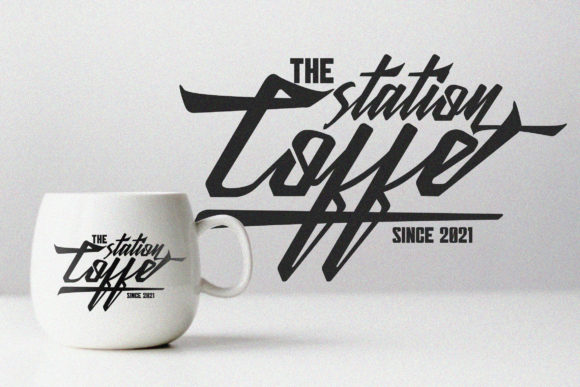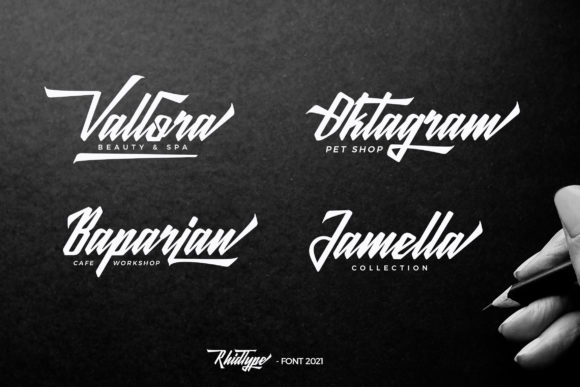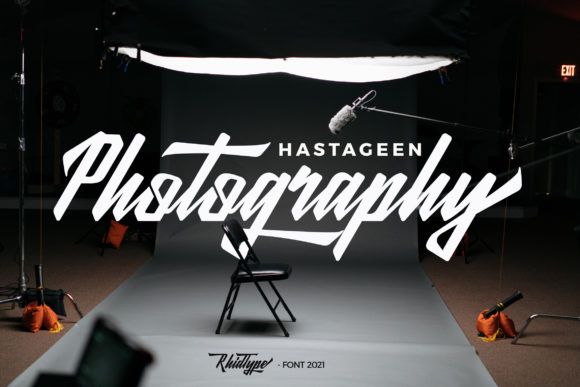
Introduction to Hollandia Font
Have you ever found yourself staring at a blank canvas, searching for the perfect font to bring your creative project to life? I’m sure many designers can relate to this moment of uncertainty. But what if I told you that there’s a font that can help you break through that creative block and make your design stand out? Say hello to the lovely and timeless Hollandia Font, a high-quality handwritten font that’s perfect for creating eye-catching logos, branding, and quotes.
As a valuable design resource, the Hollandia Font offers a wide range of glyphs and swashes, making it easy to access and customize. And the best part? It’s PUA encoded, which means you can download it for free and use it in your next creative project with ease. Whether you’re a seasoned designer or just starting out, the Hollandia Font is a must-have in your design arsenal.
Key Features of Hollandia Font
- High-quality, professional font perfect for creative projects and design resources.
- Unique, modern design with a transparent background, allowing for versatility in creative projects.
- Comes in a single font size, ideal for use in logos, headings, and body text, with a resolution of 300 DPI.
- Features a unique, hand-drawn aesthetic, setting it apart from other fonts in the market.
Honest Review: Hollandia Font
As a designer, I’m always on the lookout for high-quality fonts to enhance my creative projects. Recently, I had the chance to work with the Hollandia Font, and I must say, it’s a great addition to my design resource library.
- Clean and modern design: The Hollandia Font boasts a clean and modern design that’s perfect for a wide range of creative projects, from logos to brochures.
- High-quality graphics: The font comes with high-quality graphics, including a transparent background, which makes it easy to integrate into any design.
- Limited language support: One of the limitations of the Hollandia Font is that it only supports a limited range of languages, which may be a drawback for designers working on multilingual projects.
Overall, I’m impressed with the Hollandia Font’s design and quality. While it may have some limitations, it’s still a valuable resource for designers looking for a clean and modern font to enhance their creative projects.
The Hollandia Font is a free download design resource ideal for creative projects that require a high-quality, unique font. Its transparent background makes it versatile for use in various design applications.
Common Use Cases for Hollandia Font
Hollandia Font is suitable for a wide range of design projects, including logos, business cards, brochures, and social media graphics. Its unique design and transparent background make it an ideal choice for creative professionals and DIY designers alike.